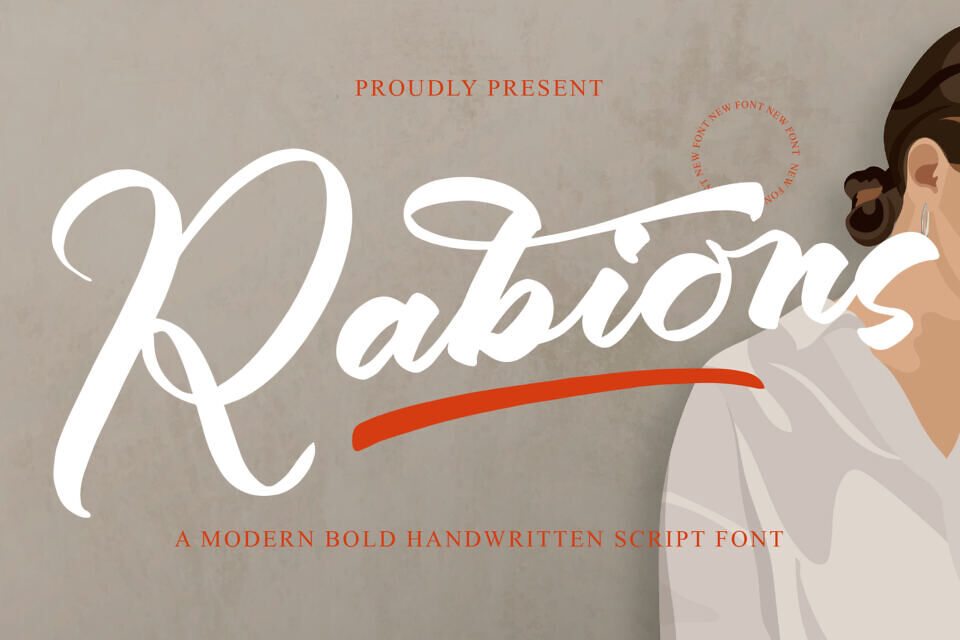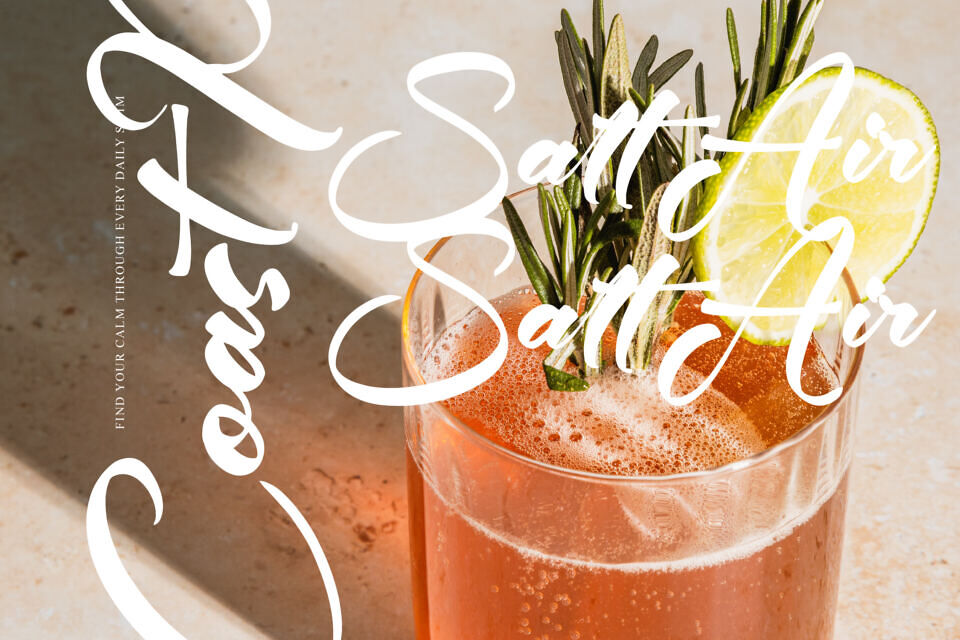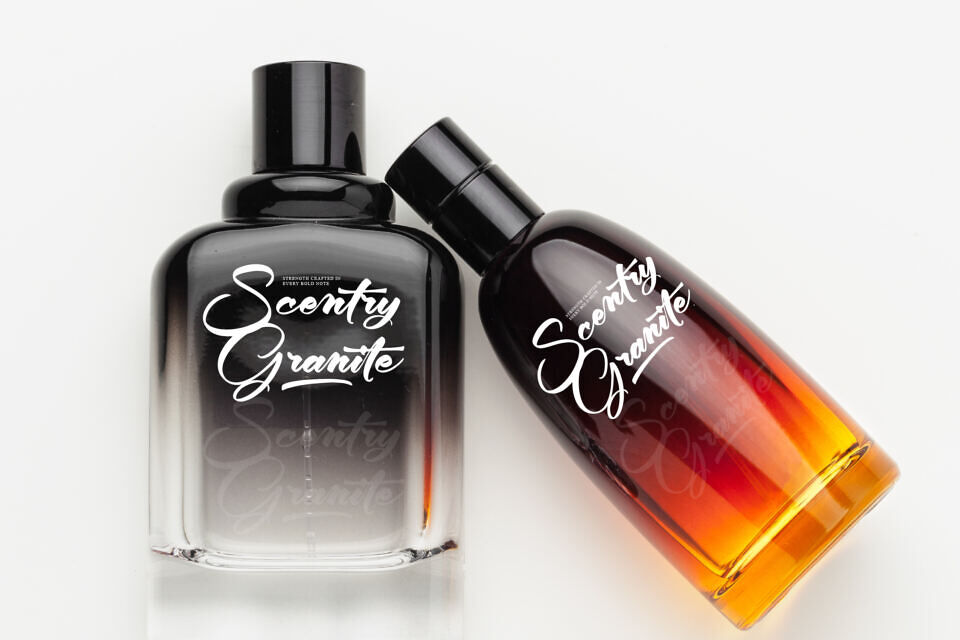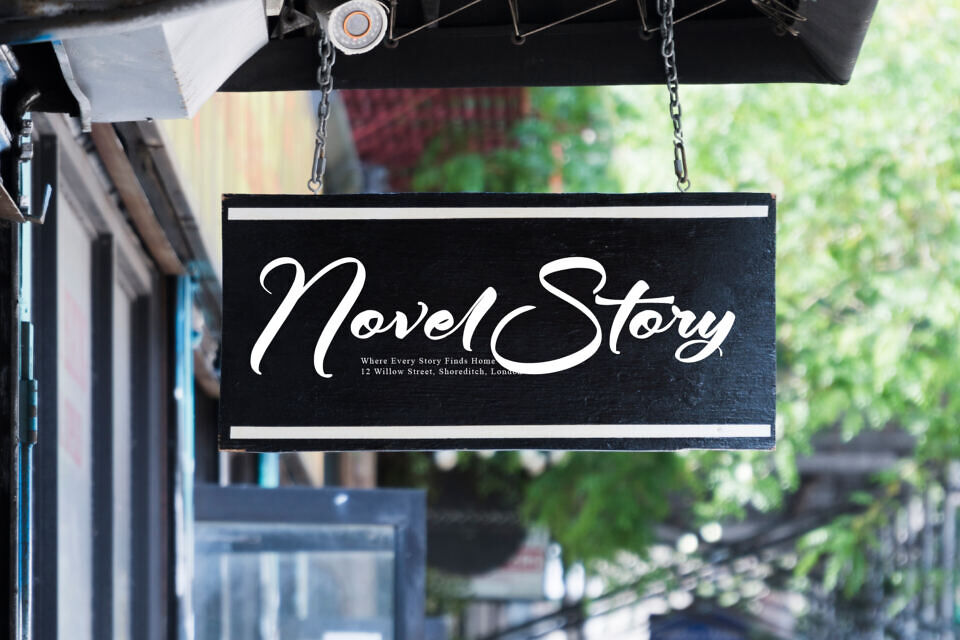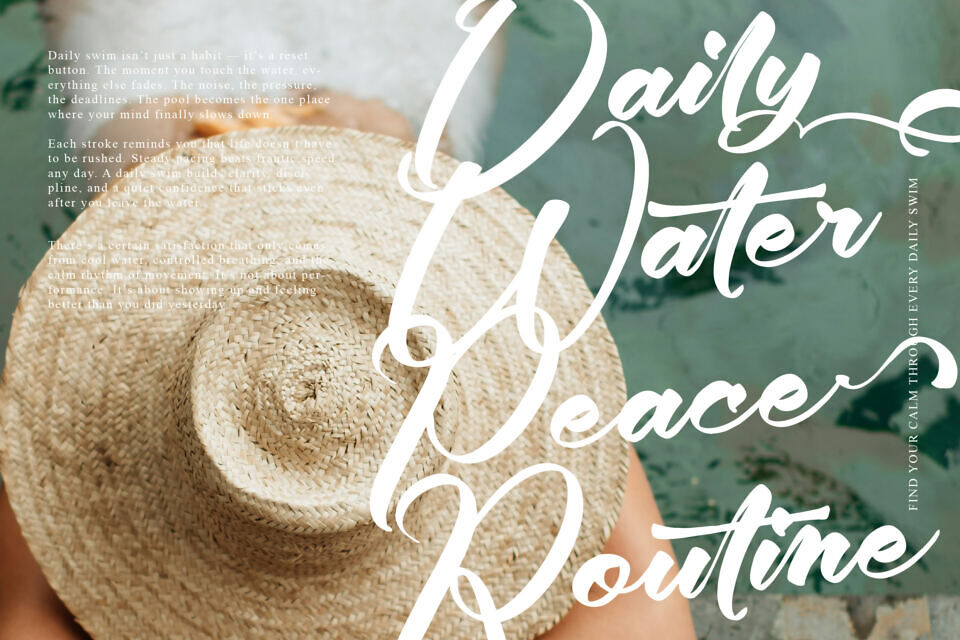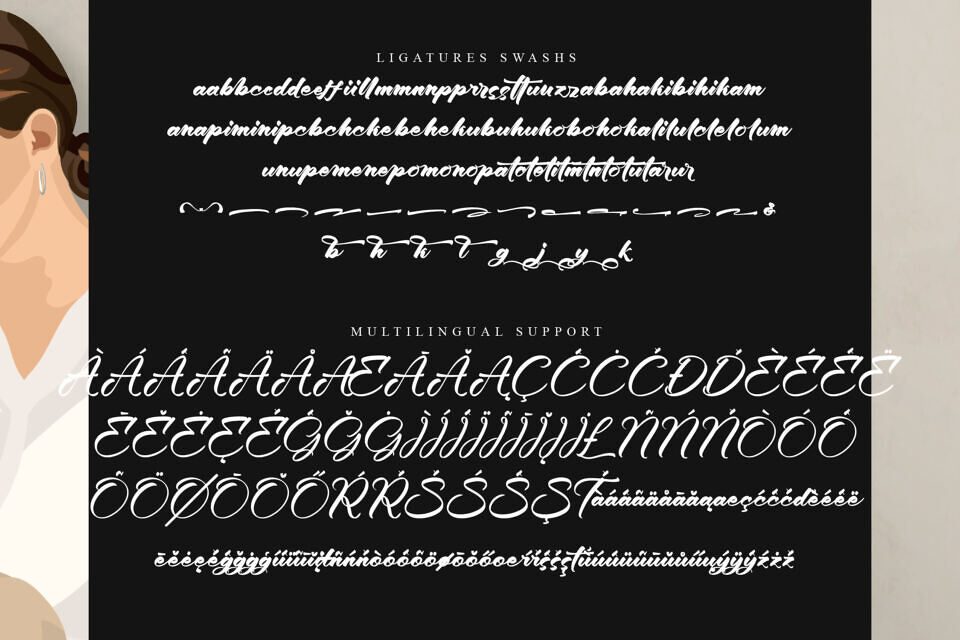
Rabions Font
Rabions is a premium bold handwritten script typeface that combines expressive brush lettering with modern sophistication. Inspired by authentic handwritten strokes, this typeface features confident curves, dynamic movement, and refined details that create a powerful visual identity for contemporary branding.
Designed for professionals and creatives, Rabions delivers exceptional versatility across luxury branding, fashion, packaging, editorial design, and digital media. Whether you’re developing a premium logo, launching a lifestyle brand, or designing eye-catching marketing materials, Rabions provides a timeless handwritten style that enhances the value and professionalism of your work.